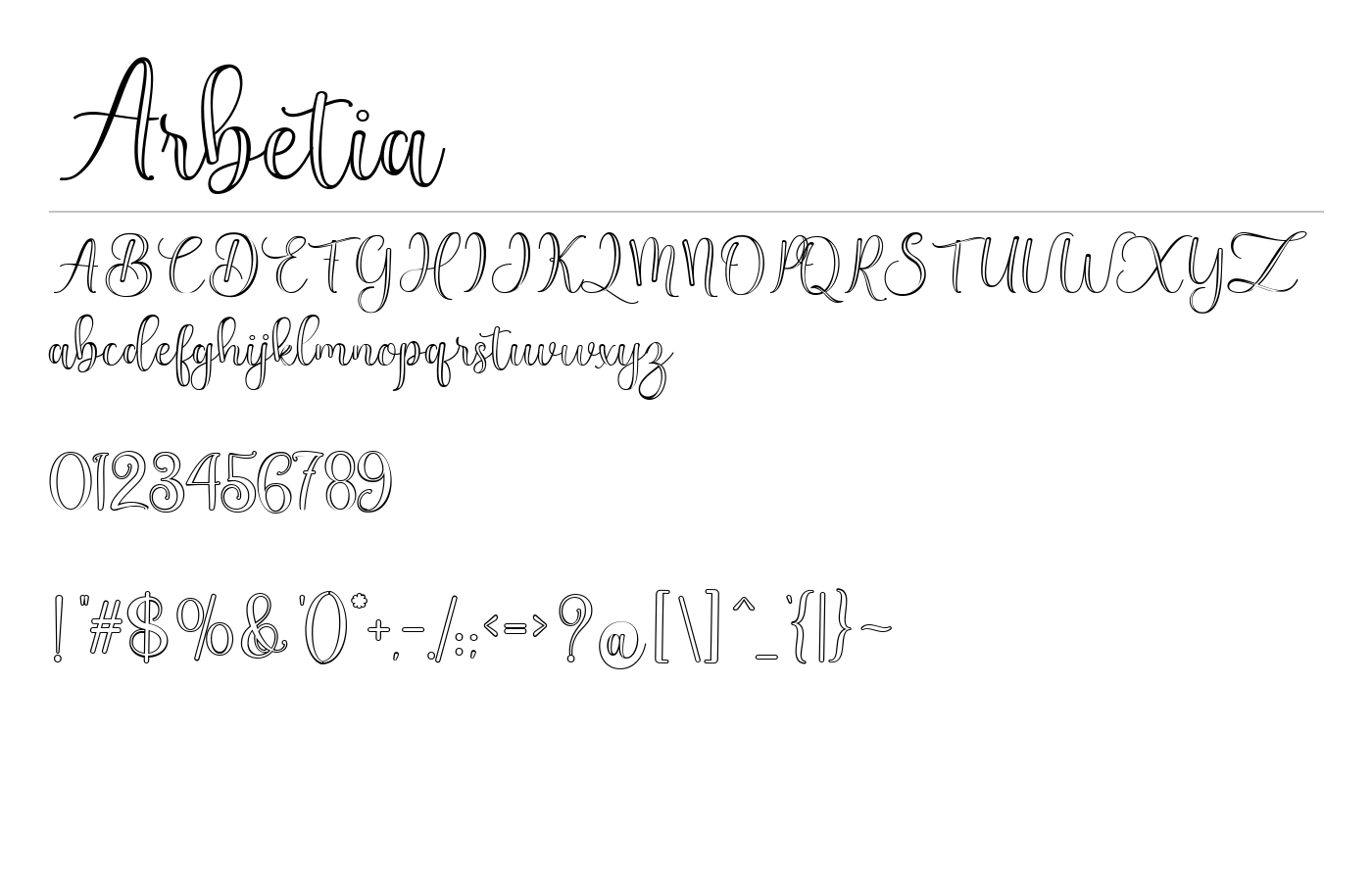
Arbetia is a delicate, elegant script font characterized by its fine lines and flowing, hand-drawn style. With its tall, slender letterforms and fluid connections, it evokes a graceful, sophisticated feel ideal for invitations, branding, and feminine or artistic projects where a touch of refinement is desired. Its airy and playful personality makes it perfect for creative headlines and decorative uses, adding charm without overwhelming the design.
Arbetia Font
About Arbetia Font
| Font family | Arbetia Font |
| Designer | Ikhsan Maulana |